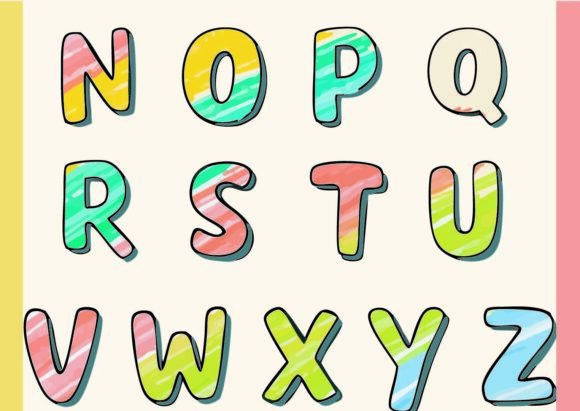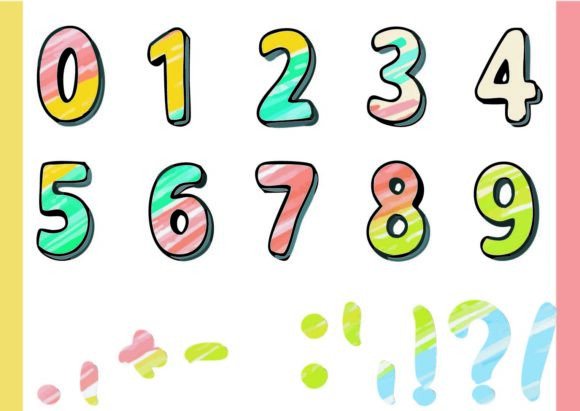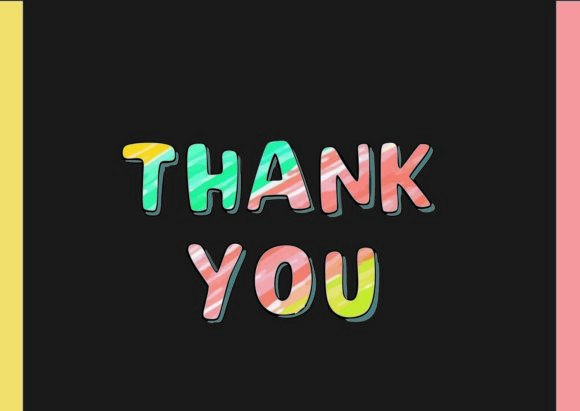
The Colorful World of Collins Font: A Designer’s Dream Come True
I’ll never forget the day I stumbled upon Collins Font while working on a branding project for a children’s play center. I was on a mission to find the perfect font that would capture the playful and imaginative spirit of the brand. As I scrolled through my font library, I came across Collins Font, and my eyes widened with excitement. This wasn’t just any ordinary font – it was a color font, a chromatic font, a masterpiece of typography!
Every single glyph in Collins Font has a different set of colors, making it a colorful heaven for designers like me. As I looked closely at the glyphs, I was amazed by the complex sets of paths and connections in every single one of them. Each glyph could be a typographic painting! In this article, I’ll share my experience with Collins Font, its features, and how to make the most of it on various design platforms.
- ✨ Unique and playful color schemes: Collins Font offers a wide range of colors and combinations that can add a pop of fun to any design project.
- 💡 Endless creative possibilities: With Collins Font, you can experiment with different color combinations, glyphs, and stylistic alternates to create one-of-a-kind designs.
While Collins Font is an amazing design tool, there are a few things to keep in mind:
The Story Behind Collins Font
Collins Font was designed with the intention of pushing the boundaries of typography. The creator, a passionate designer, wanted to craft a font that would inspire creativity and add a pop of color to designs. With Collins Font, they aimed to create a tool that would allow designers to experiment with color and typography in new and exciting ways.